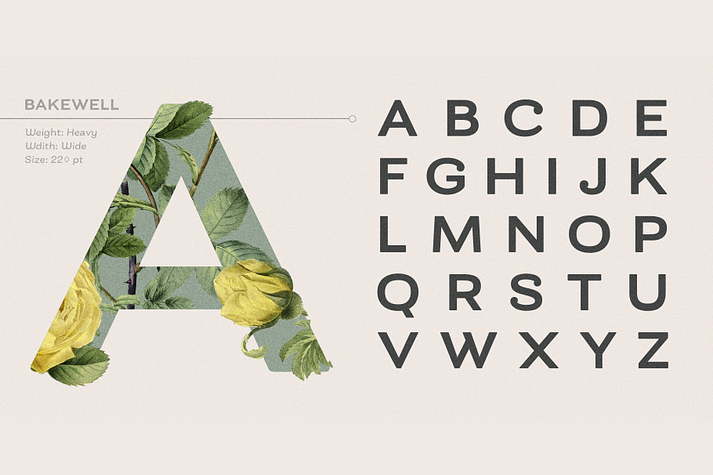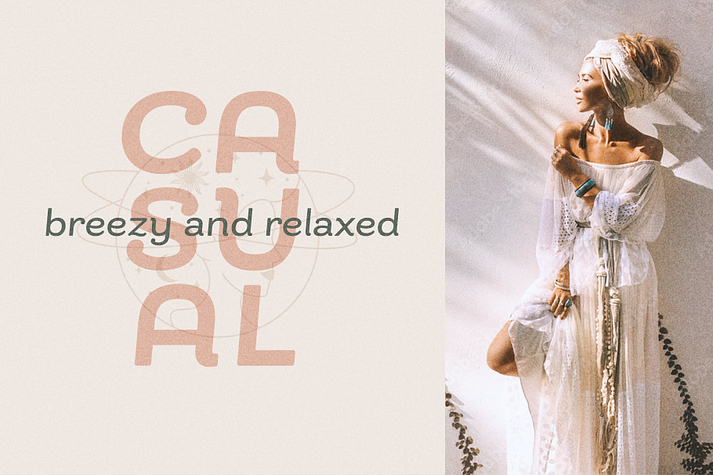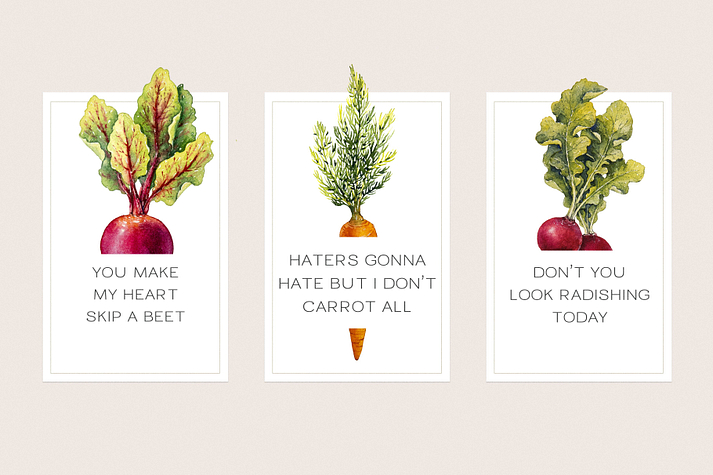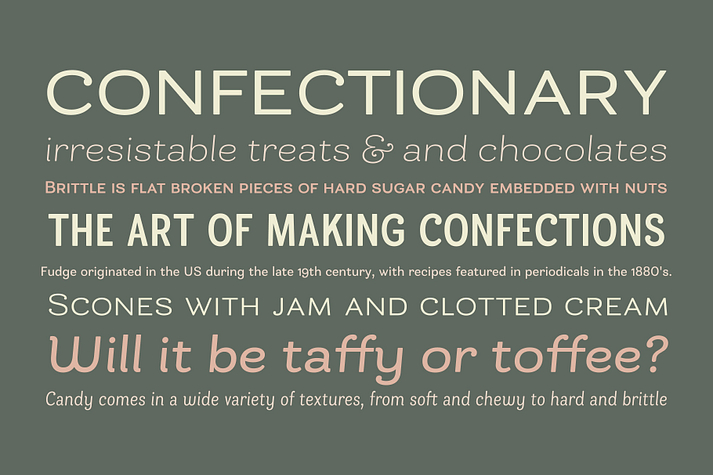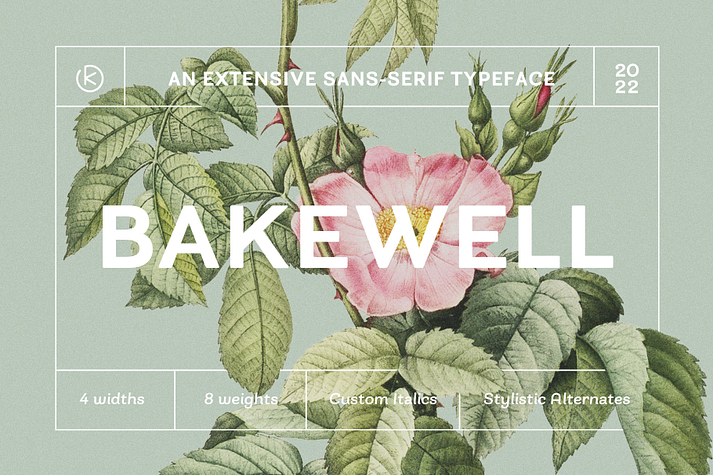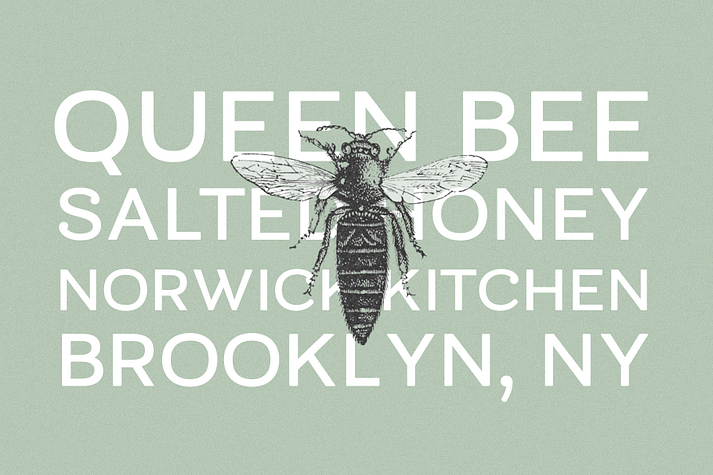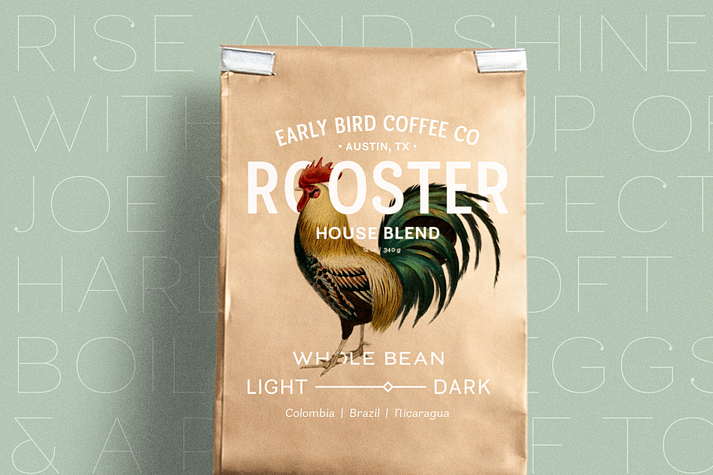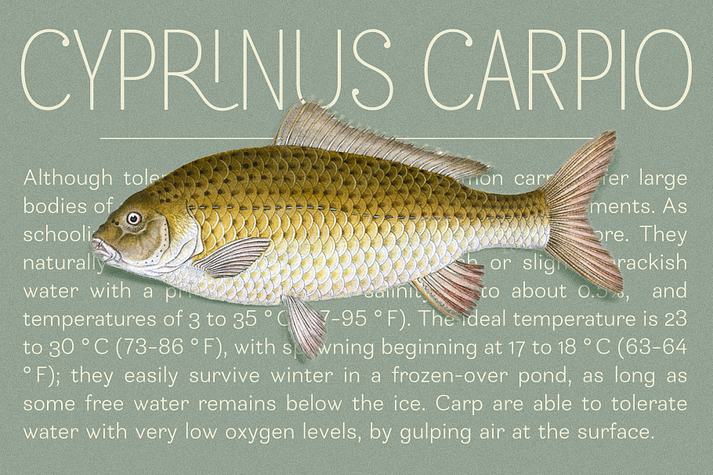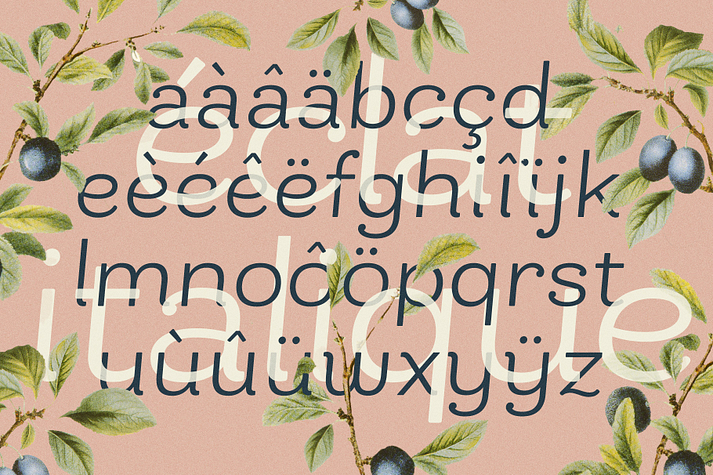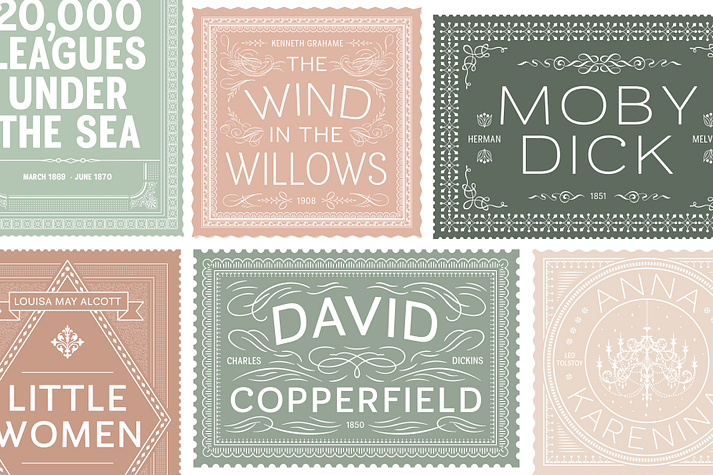
Bakewell
Bakewell is a sans serif font family. This typeface has fifty-seven styles and was published by Kimmy Design.
Bakewell is the 4th typeface of the Winslow Type System. It’s a low contrast sans-serif with ball terminals and a sweet disposition. The typeface includes a wide range of styles, widths and weights that make it a great addition to any type collection. From Narrow to Wide and Hairline to Bold, the font family offers extended optionality. Packed with Opentype Features, users can create one-of-a-kind designs perfectly tailored to their specific needs!
Foundry Kimmy Design